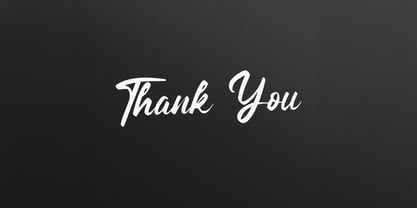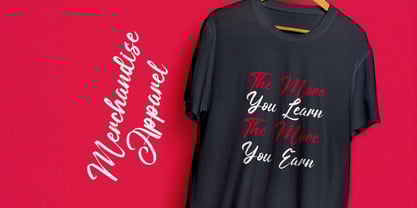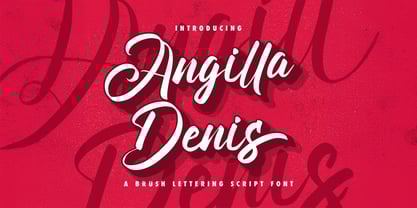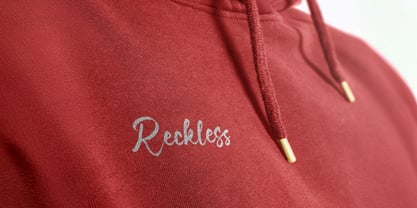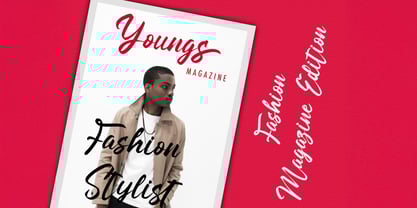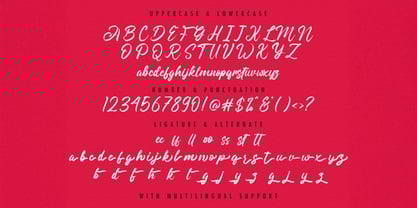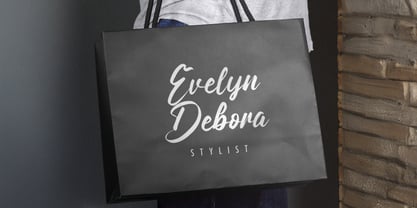
Angilla Denis
by Stringlabs Creative Studio
The Angilla Denis Font Family was designed by Virgiawan Listanto and published by Stringlabs Creative Studio. Angilla Denis contains 1 styles. More about this family
Angilla Denis is a bold and energetic Brush Script Font designed to make a statement. With its expressive strokes, rough textures, and natural brush feel, Angilla Denis brings raw creativity and authentic edge to your typography.
Designers: Virgiawan Listanto
Foundry: Stringlabs Creative Studio